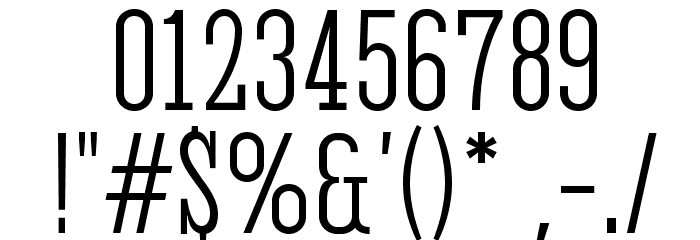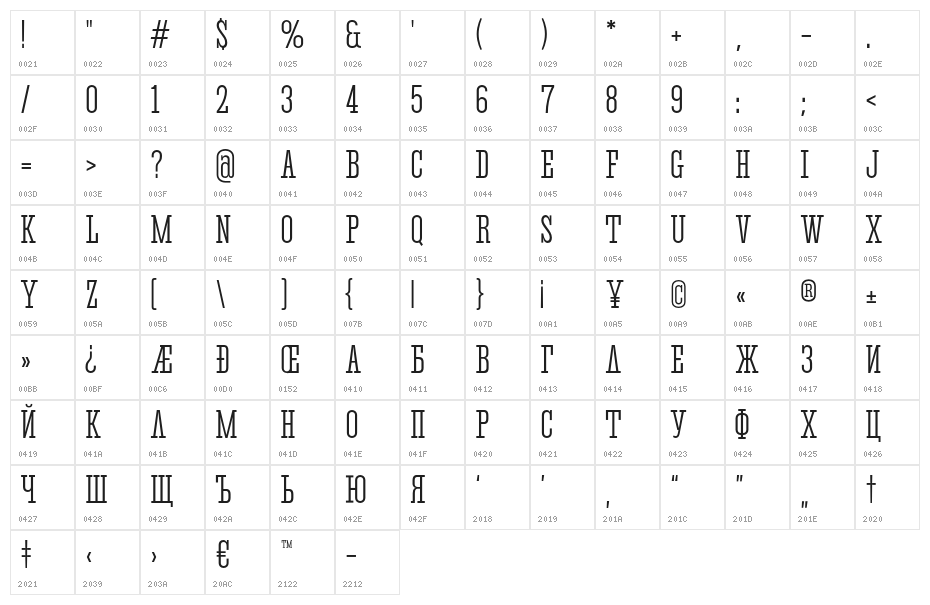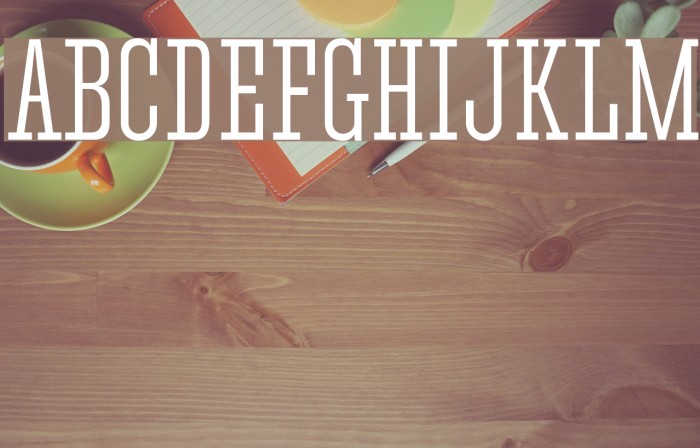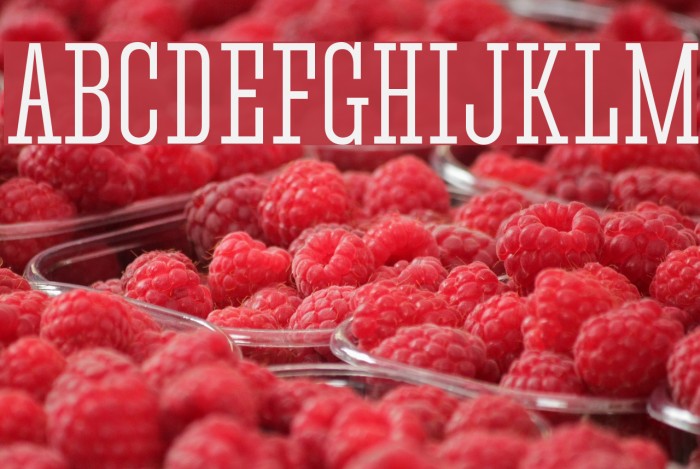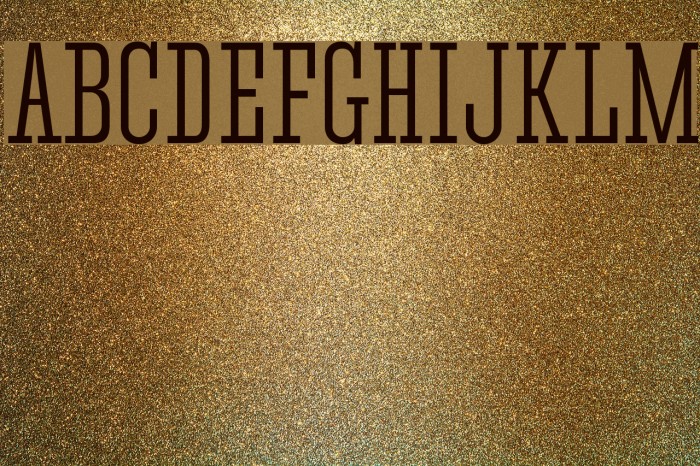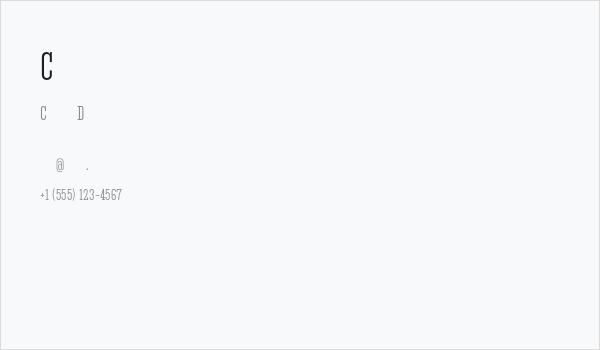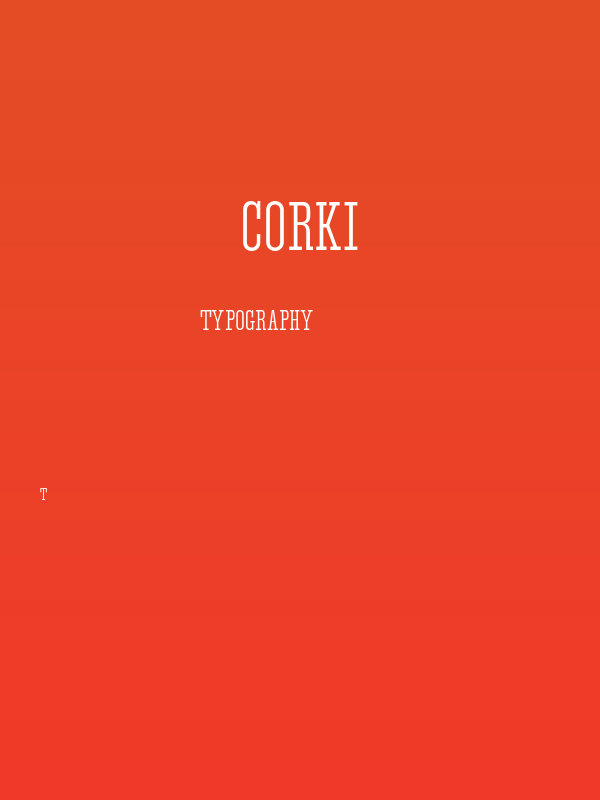
Corki Font
Corki Description
This font features a bold and impactful design with a strong presence. The characters are tall and narrow, giving it a condensed appearance. The serifs are prominent and add a touch of elegance, while the overall structure maintains a modern and clean look. The uppercase letters are particularly striking, with a uniform height and consistent spacing. The numerals and special characters are well-integrated, maintaining the font's cohesive style. This font is versatile, suitable for a variety of design applications where a bold statement is needed.
| Proposed Projects | Ideal for headlines, posters, branding, and editorial design where a strong visual impact is desired. |